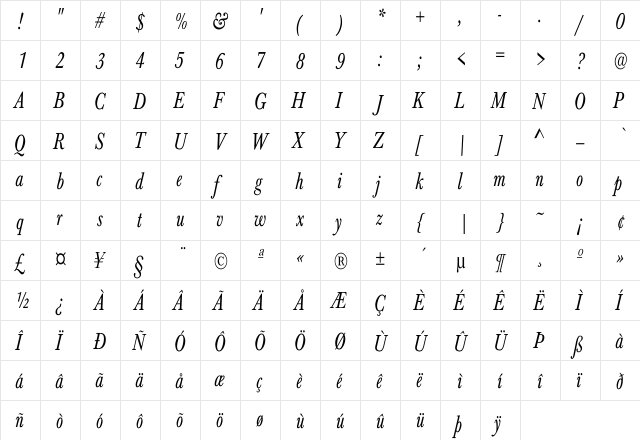
NewBaskerville-Normal-Ita Cn Regular
Design Context for NewBaskerville-Normal-Ita Cn Typeface
NewBaskerville-Normal-Ita Cn offers clean, dependable letterforms without strong stylistic allegiance, making it a practical choice for designers who need flexibility. Its italic angle brings a sense of urgency and motion to the letterforms.
Pro Tip: Try NewBaskerville-Normal-Ita Cn for annotation and caption copy alongside an upright companion — the contrast in angle creates a dynamic but ordered typographic system.